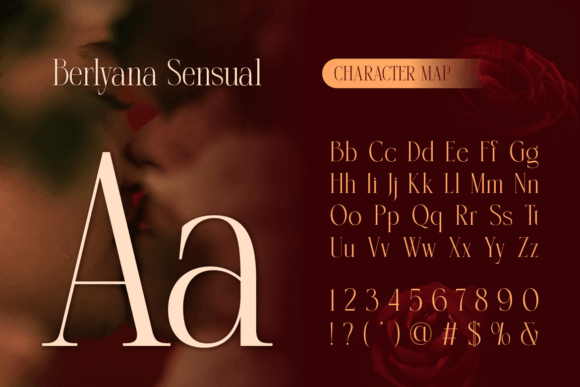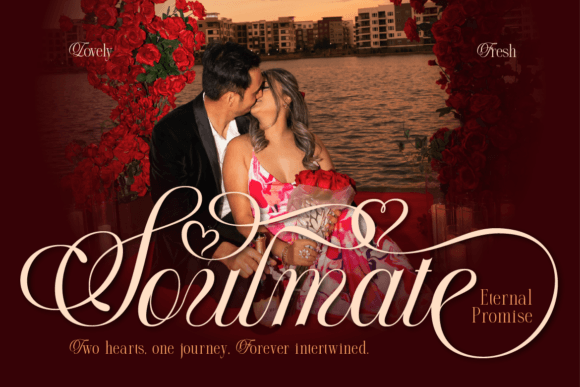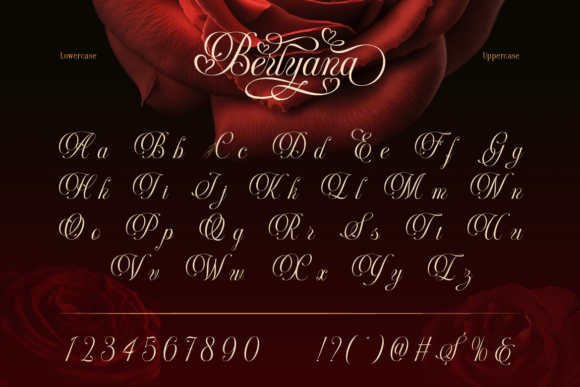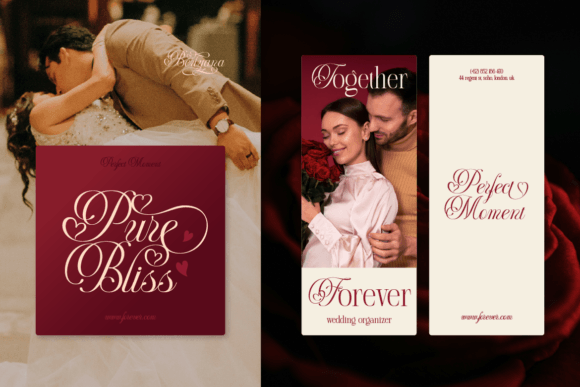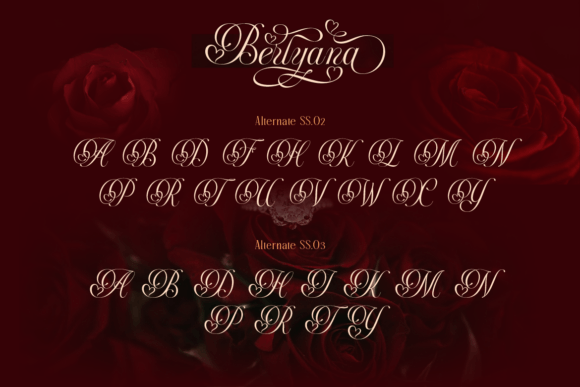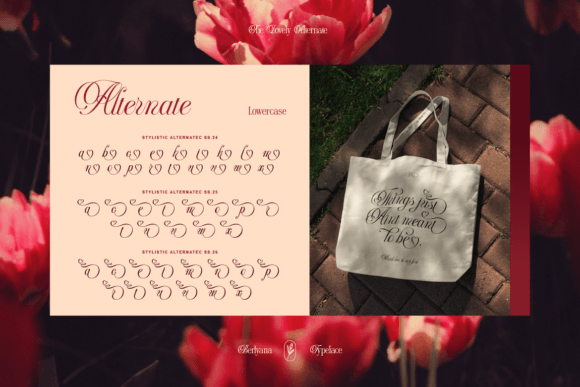
A Font that Speaks to the Heart: Introducing Berlyana Sensual
As designers, we’ve all been there – staring at a blank page, trying to find the perfect words to express a client’s vision or convey a brand’s personality. It’s those moments when the right font can be the game-changer, elevating the design from mere words to a work of art. For me, that moment came when I discovered the Berlyana Sensual Font, a harmonious blend of romance and elegance that spoke directly to the heart.
With its unique fusion of script and serif styles, this exquisite font is designed to evoke sensuality, glamour, and romance. Whether you’re creating a wedding invitation, a perfume ad, or a luxury brand’s marketing materials, the Berlyana Sensual Font is the perfect choice to add a touch of sophistication and elegance to your designs.
Berlyana Sensual Font Key Features
- Unique Characteristics: Elegant, sophisticated, and sensual design with intricate details and curves, making it perfect for luxury branding and high-end designs
- Font Weight: Offers a range of font weights, from Light to Extra Bold, allowing for flexibility in design
Review: Berlyana Sensual Font
Overall, I have mixed feelings about the Berlyana Sensual Font. It’s a unique and eye-catching font that can add a touch of elegance to any design project.
- The font’s flowing lines and curves create a sense of sophistication and luxury.
- The font’s ability to convey a sense of sensuality without being too over-the-top is a major plus.
- The font’s versatility makes it suitable for a wide range of design projects, from fashion to beauty.
- The font may not be ideal for projects that require a lot of text, as it can be quite busy and overwhelming.
- The font’s lines and curves can be a bit too playful for some design projects, making it difficult to convey a more serious tone.
- The font’s uniqueness can also make it feel a bit gimmicky or overused, depending on the project.
In conclusion, the Berlyana Sensual Font is a great choice for design projects that require a touch of elegance and sophistication. However, it may not be the best fit for projects that require a lot of text or a more serious tone.
To get the most out of the Berlyana Sensual font, use it for designs that require a romantic, elegant, or sophisticated feel. Some common use cases include:
– Luxury branding and packaging
– Romantic novels and poetry
– Fine art and photography prints
Alternatives to Berlyana Sensual Font
Great Vibes is a beautiful, elegant script font that is perfect for creating a romantic and luxurious feel. It features flowing connections and a high-end aesthetic, making it ideal for wedding invitations, luxury branding, and high-end marketing materials.
Compared to Berlyana Sensual Font, Great Vibes has a more refined and sophisticated look. While Berlyana has a more dramatic flair, Great Vibes is more understated and elegant.
Carolyna Pro is a modern, luxurious script font that is perfect for creating a high-end and sophisticated feel. It features a unique blend of elegance and modernity, making it ideal for fashion branding, luxury marketing, and high-end packaging.
Compared to Berlyana Sensual Font, Carolyna Pro has a more modern and edgy look. While Berlyana has a more classic and romantic feel, Carolyna Pro is more contemporary and trendy.
Alex Brush is a beautiful, elegant script font that is perfect for creating a romantic and whimsical feel. It features flowing connections and a high-end aesthetic, making it ideal for wedding invitations, children’s books, and artistic branding.
Compared to Berlyana Sensual Font, Alex Brush has a more delicate and whimsical look. While Berlyana has a more dramatic flair, Alex Brush is more subtle and charming.